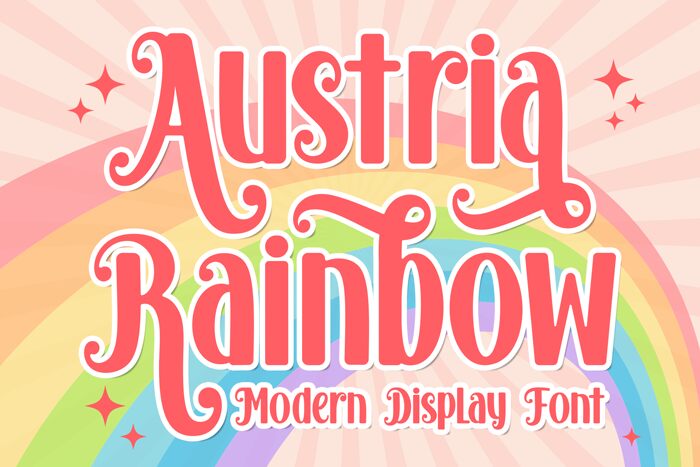
Austria Rainbow, the groovy semi-bold font by Hoperative, injects a vibrant retro charm into your projects. Its condensed width adds a touch of sleekness, making it suitable for diverse ventures. Unleash its playful energy on album covers, party invitations, and event posters to captivate audiences instantly. Elevate your brand identity with Austria Rainbow's distinct display typeface that pairs flawlessly with vintage-inspired logos and packaging designs. Embrace the 70s nostalgia and let this font become the soul of your next creative masterpiece, where every word bursts with colorful enthusiasm.
Austria Rainbow